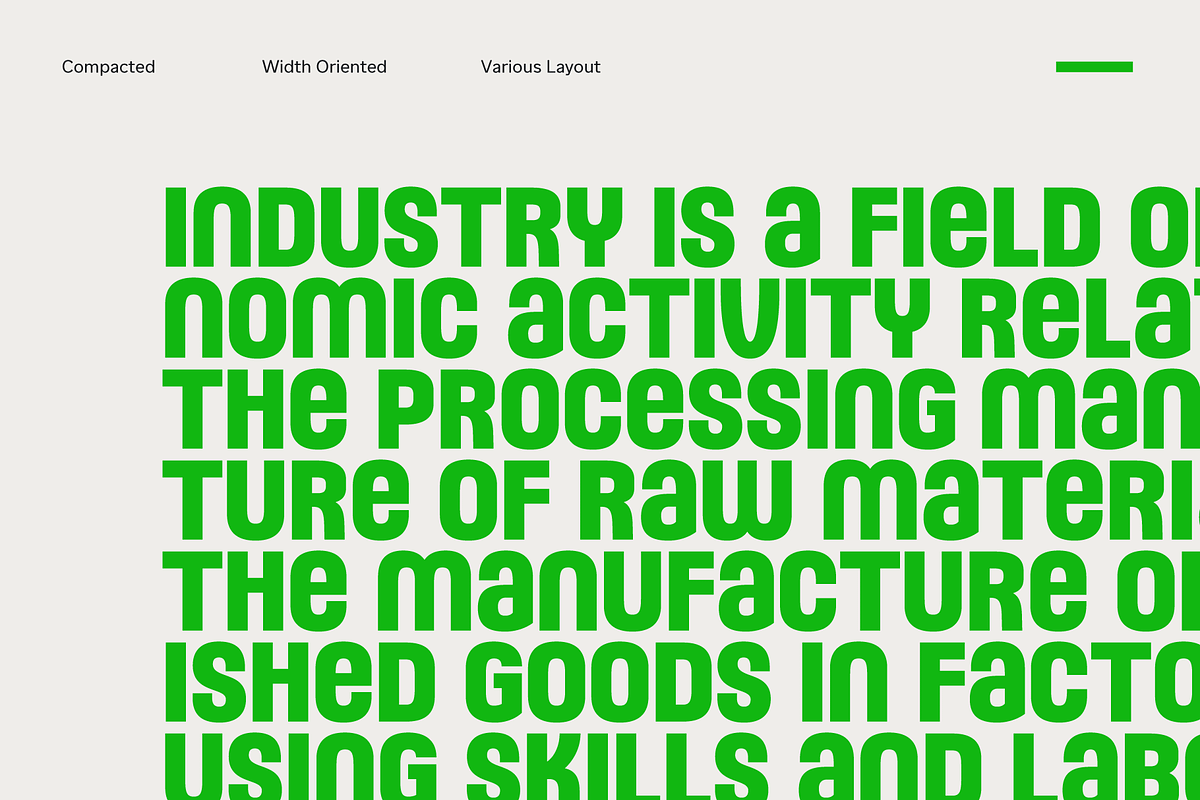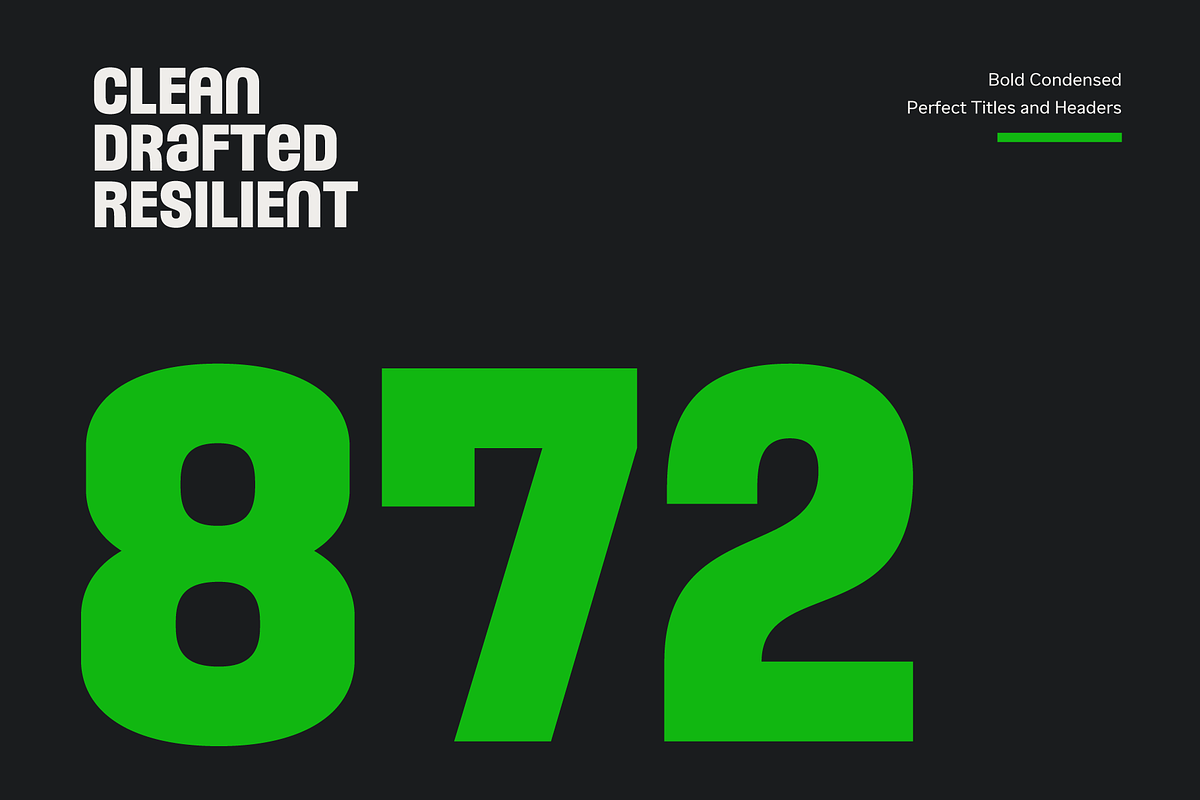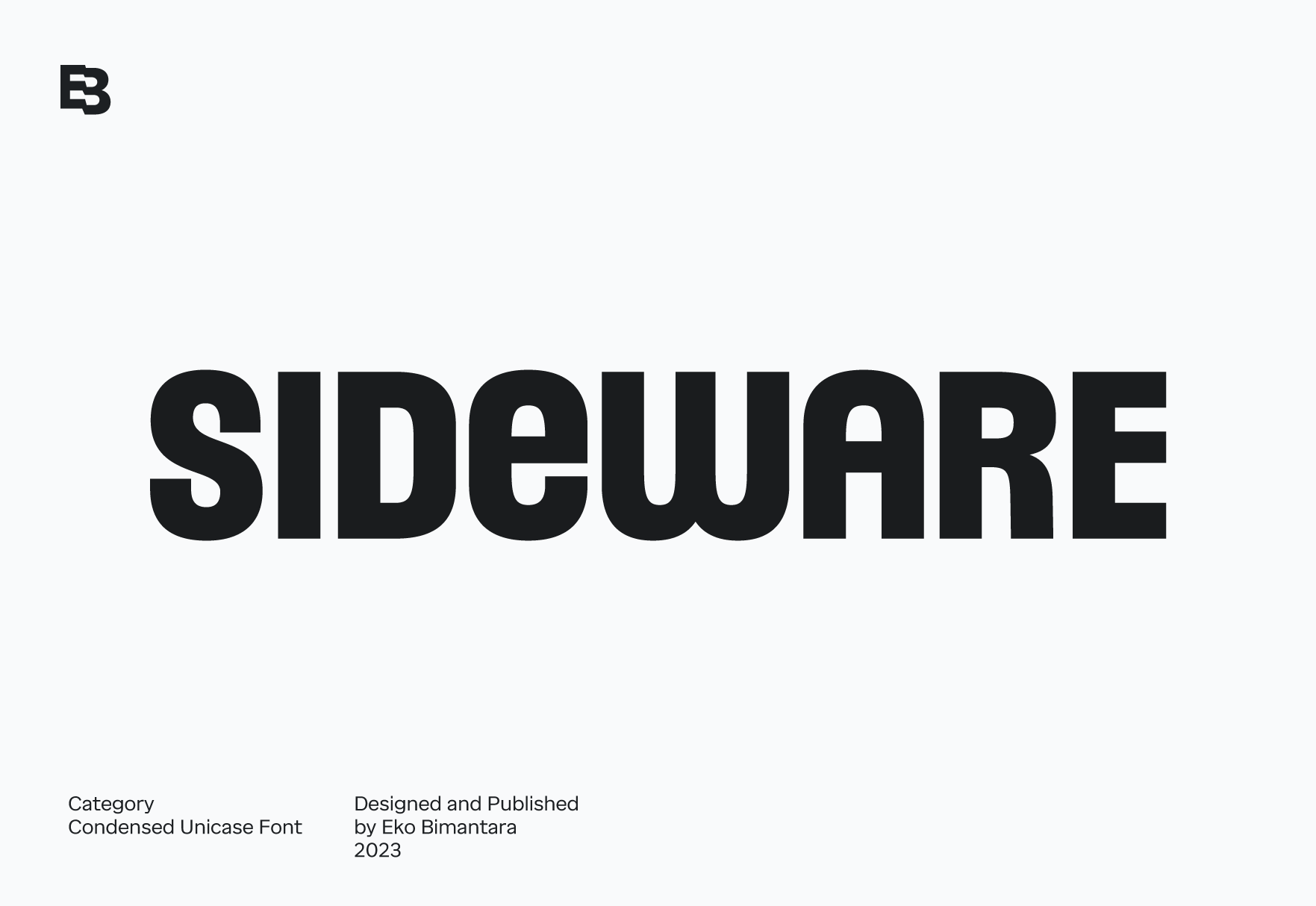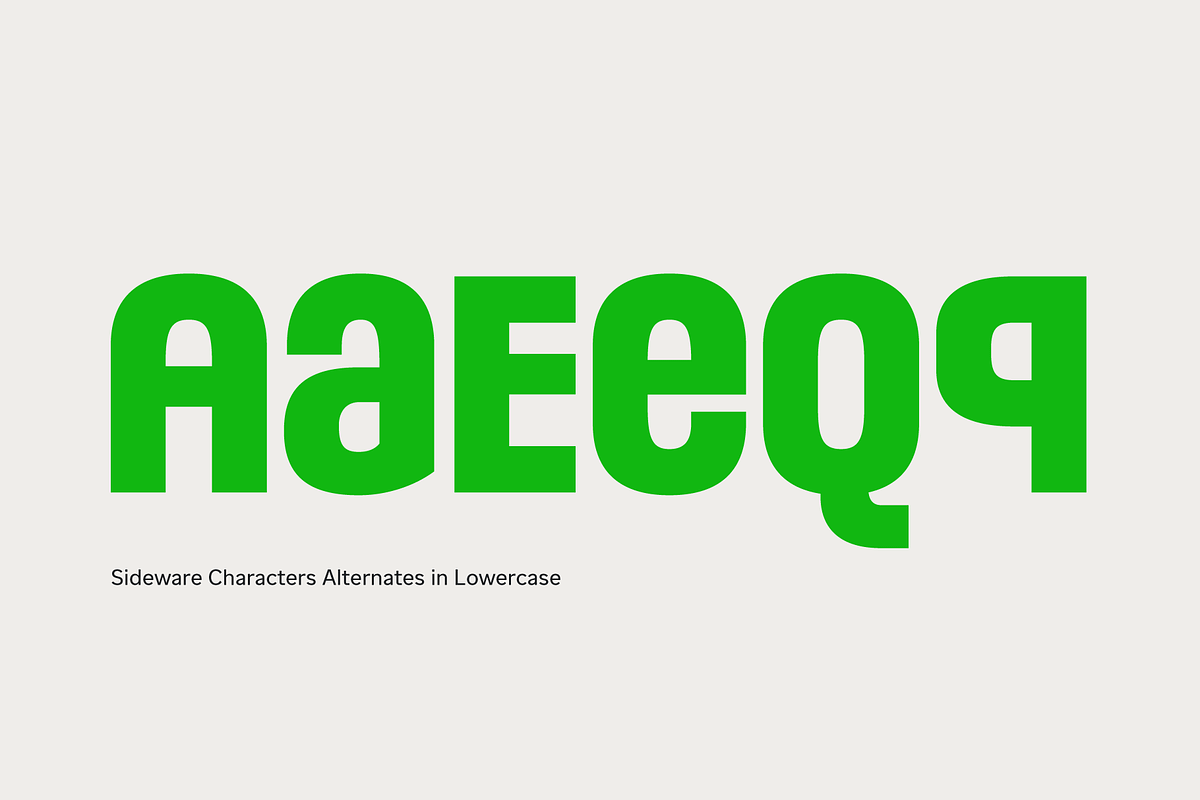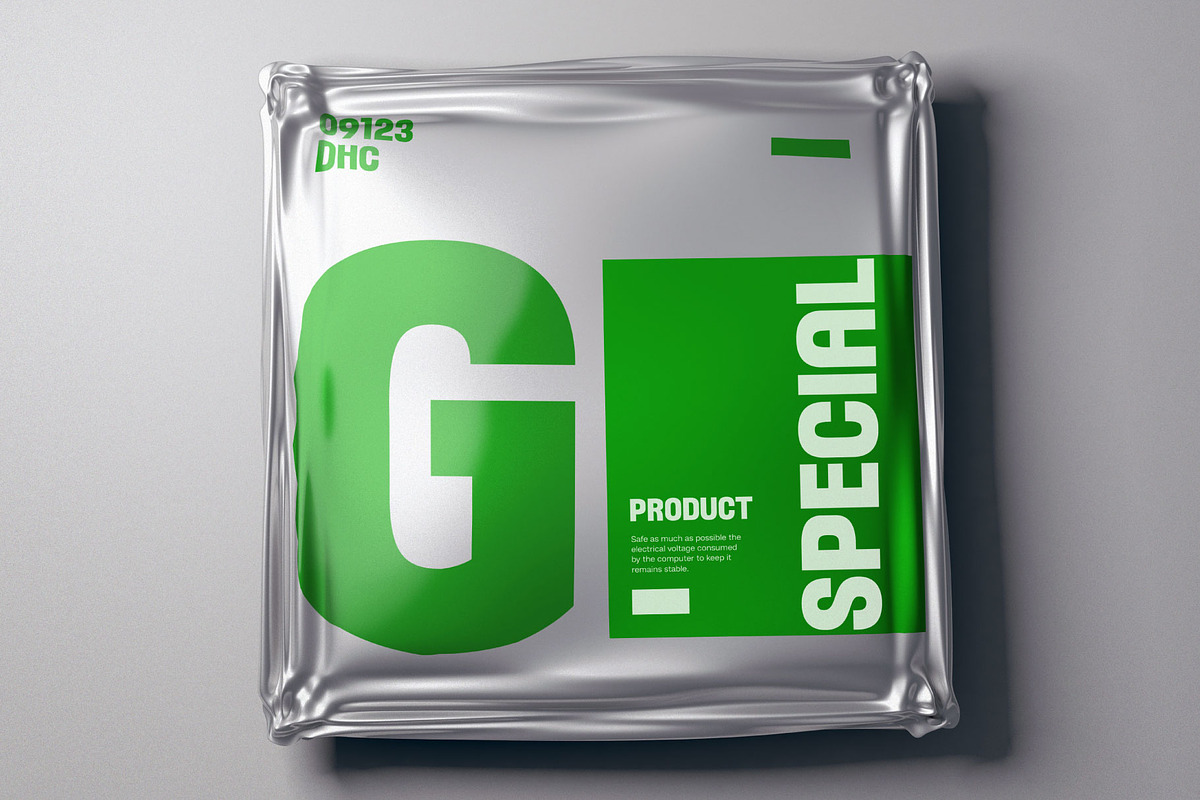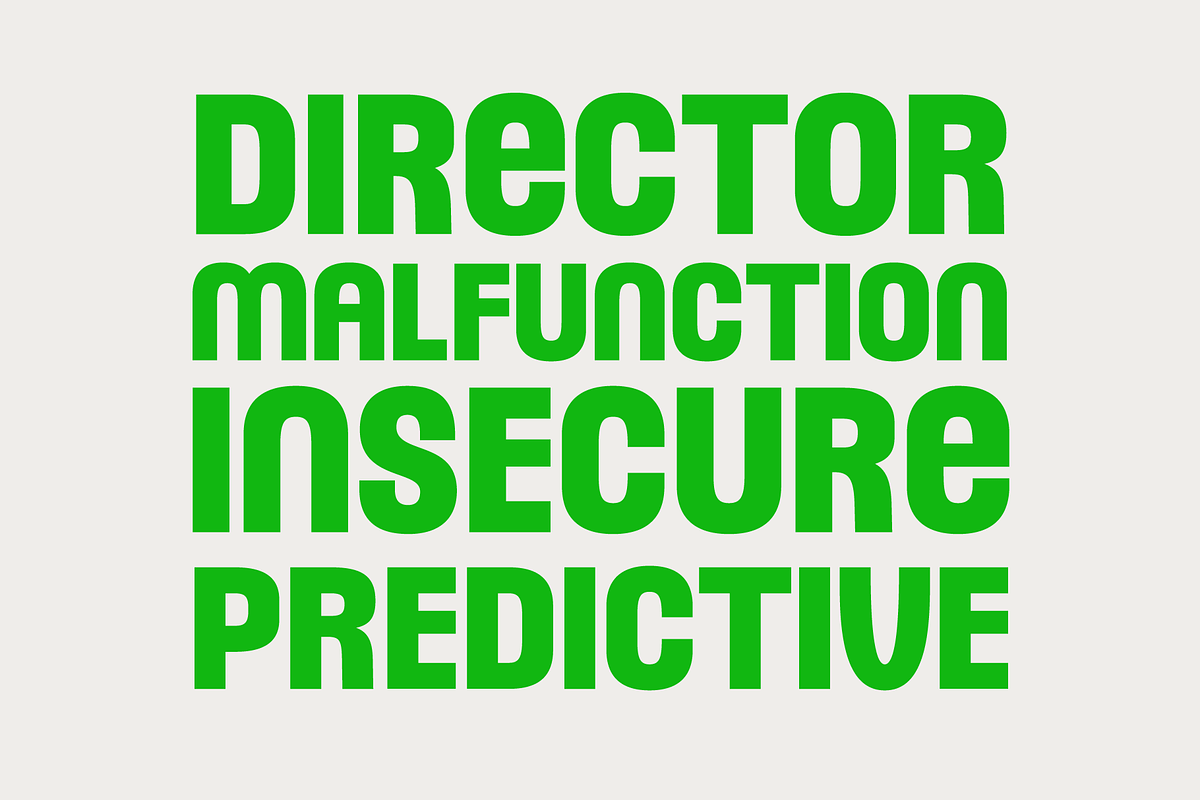
Sideware; Condensed Unicase Font
Sideware, bold modern condensed display font with a unique unicase style. Its compacted and versatile design brings a modern, clean, and simple aesthetic to your projects. Whether for eye-catching displays, large-sized text, or captivating headers, Sidewear is the perfect choice to elevate various layout designs, logos, websites, brand identities, product packaging, and a wide range of graphic design and creative purposes.